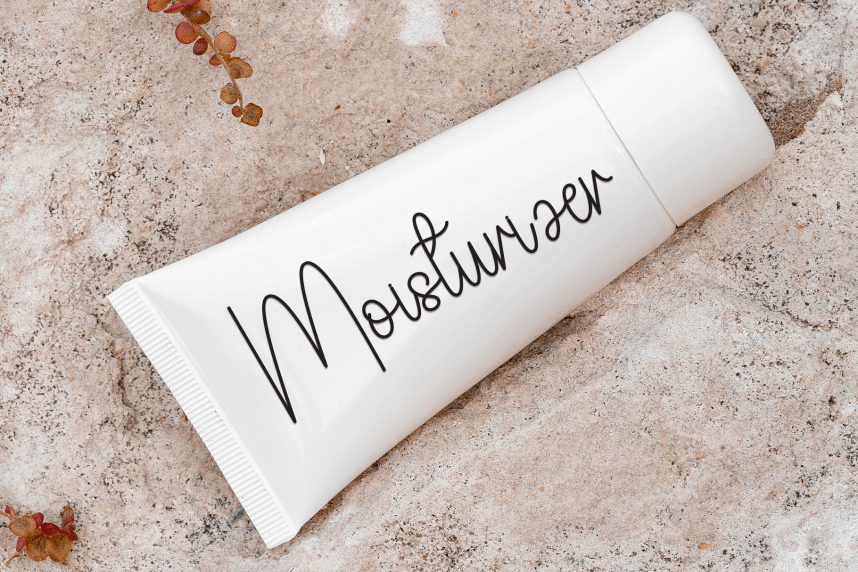
Sometings – Simple Handwritten Font
Sometings – Simple Handwritten Font is a sweet and friendly handwritten display font. Cute and fun, this font is ideal for writing wedding invitations, cards, or any other design that might need a playful touch!